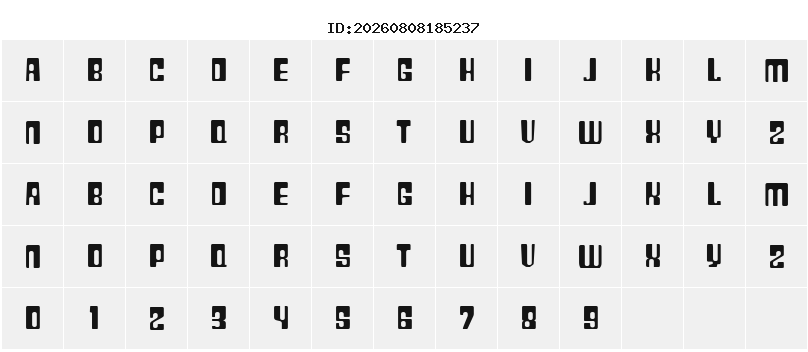
Plastic No.28 Preview
• Font Name: Plastic No.28
• Full Font Name: Plastic No.28
About Plastic No.28.ttf
Plastic No.28.ttf is a modern, elegant sans-serif font designed for ultimate readability and visual harmony. Perfect for branding, headlines, web design, and print materials.